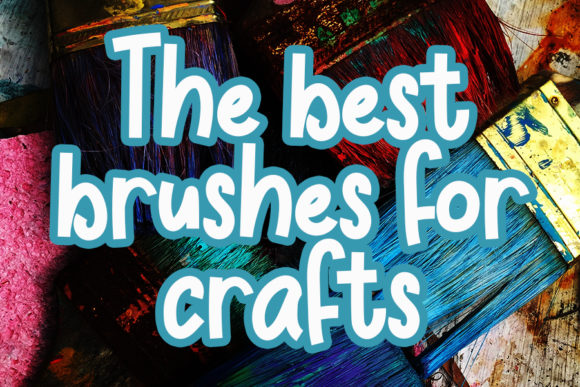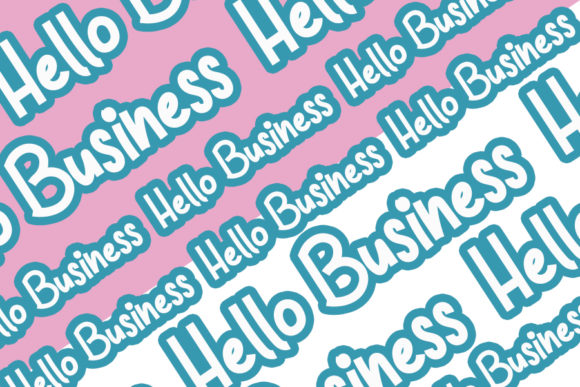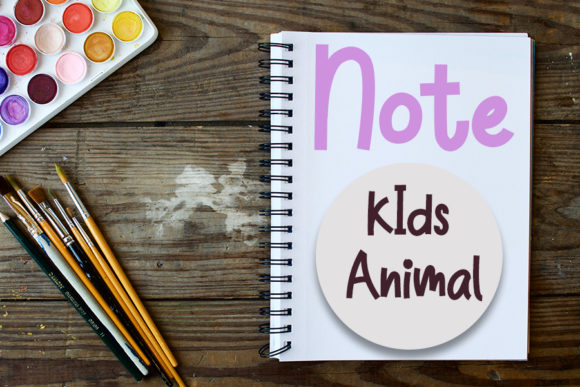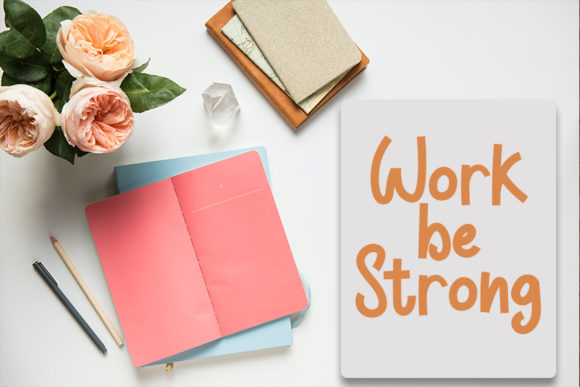
Introducing Handcraft Font: Elevate Your Designs with Elegance and Style
Are you on the lookout for a font that can add a touch of sophistication and uniqueness to your designs? Look no further than Handcraft, an interesting and unique display font that is sure to capture your heart. With its incredibly stylish look, Handcraft is perfect for creating gorgeous and timeless designs that will leave a lasting impression.
Handcraft Font is a versatile and elegant font that is ideal for designers and crafters who want to add a personal touch to their work. Whether you’re creating logos, quotes, invitations, business cards, or PowerPoint presentations, Handcraft is the perfect choice. Its unique and stylish design makes it stand out from the crowd, ensuring that your work will be noticed and remembered.
Key Features of Handcraft Font
- Unique and Stylish Design: Handcraft Font boasts a distinctive and stylish design that is sure to elevate your designs.
- Display Font: Perfect for headings, titles, and short texts, Handcraft Font is designed to make a statement.
- Versatile: Use Handcraft Font for a wide range of design projects, from logos and invitations to business cards and presentations.
- Elegant and Sophisticated: Add a touch of elegance and sophistication to your designs with Handcraft Font.
Endless Design Possibilities with Handcraft Font
With Handcraft Font, the design possibilities are endless. Here are just a few ideas to get you started:
- Logos: Create stunning logos that will make your brand stand out with Handcraft Font.
- Quotes: Add a touch of elegance to your quotes with Handcraft Font, perfect for social media posts, blogs, and more.
- Invitations: Design beautiful invitations for weddings, parties, and other special occasions with Handcraft Font.
- Business Cards: Elevate your business cards with Handcraft Font, making a lasting impression on potential clients.
- PowerPoint Presentations: Add a touch of sophistication to your presentations with Handcraft Font, engaging your audience and conveying your message with style.
Why Choose Handcraft Font?
With so many fonts available, why choose Handcraft Font? Here are just a few reasons:
- Unique Design: Handcraft Font boasts a unique design that will set your work apart from the crowd.
- Elegance and Sophistication: Add a touch of elegance and sophistication to your designs with Handcraft Font.
- Versatility: Use Handcraft Font for a wide range of design projects, from logos and invitations to business cards and presentations.
- Easy to Use: Handcraft Font is easy to use, making it perfect for designers and crafters of all skill levels.
In conclusion, Handcraft Font is a must-have for designers and crafters who want to elevate their designs with elegance and style. With its unique and stylish design, versatility, and ease of use, Handcraft Font is the perfect choice for creating gorgeous and timeless designs. So why wait? Fall in love with Handcraft Font and take your designs to the next level!